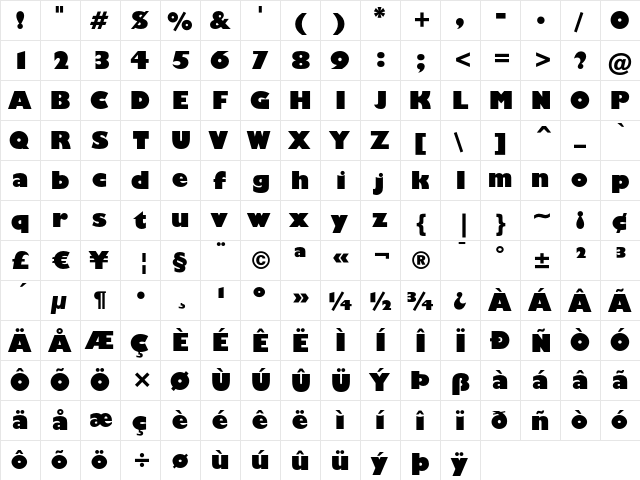
Humanist 521 Ultra Bold
Design Context for Humanist 521 Typeface
Humanist 521 is a composed and adaptable typeface that performs quietly and consistently across a wide range of design contexts. The heavy weight commands attention and anchors typographic hierarchies.